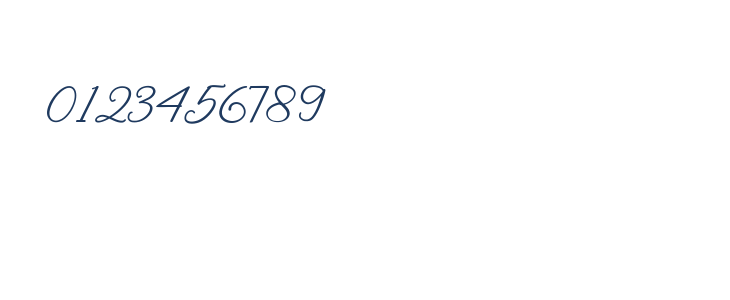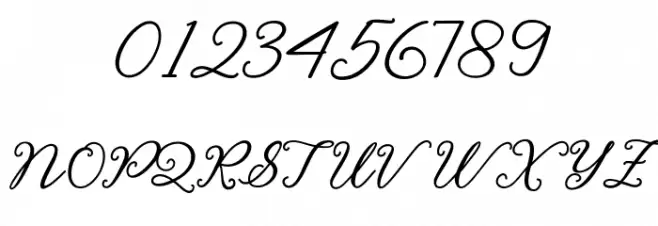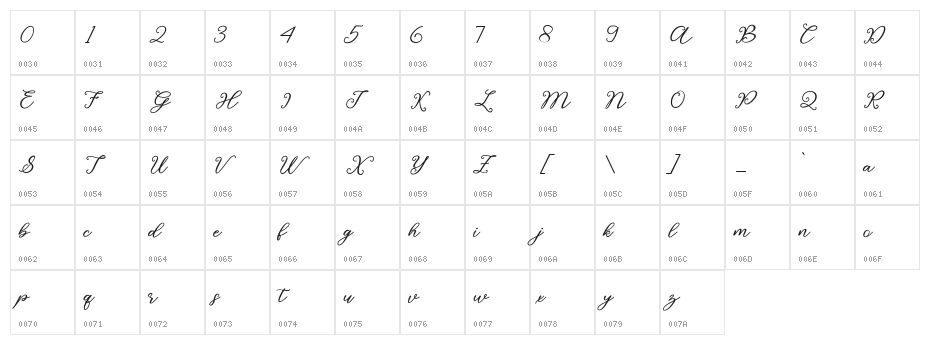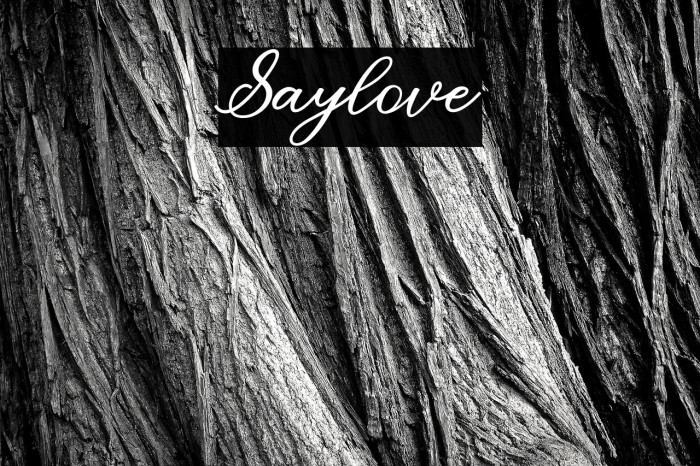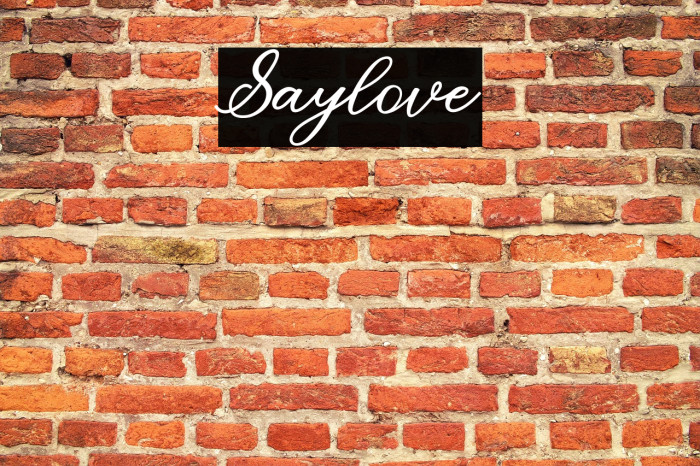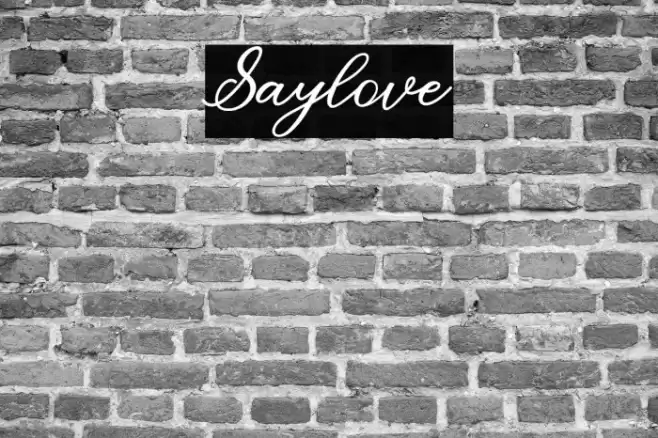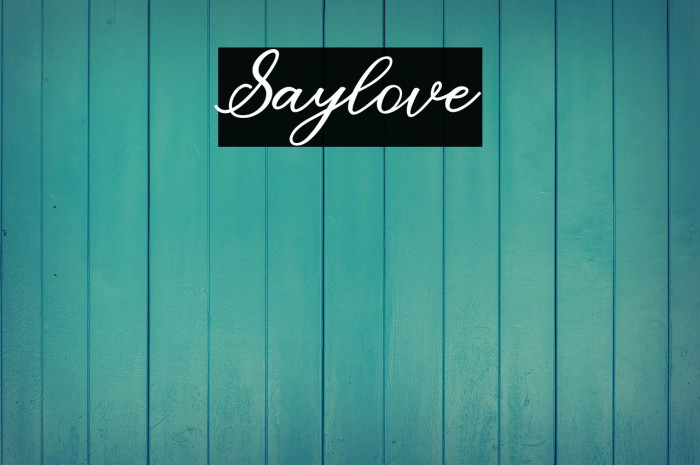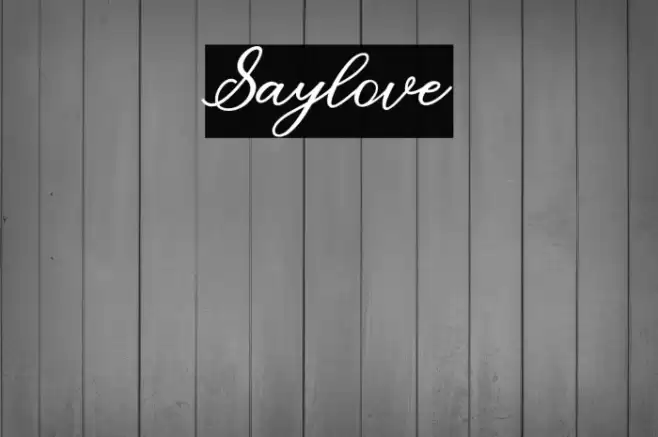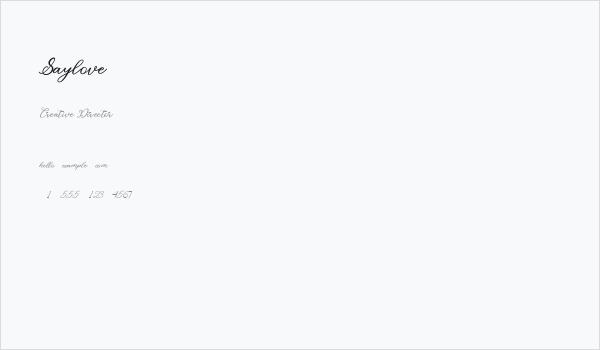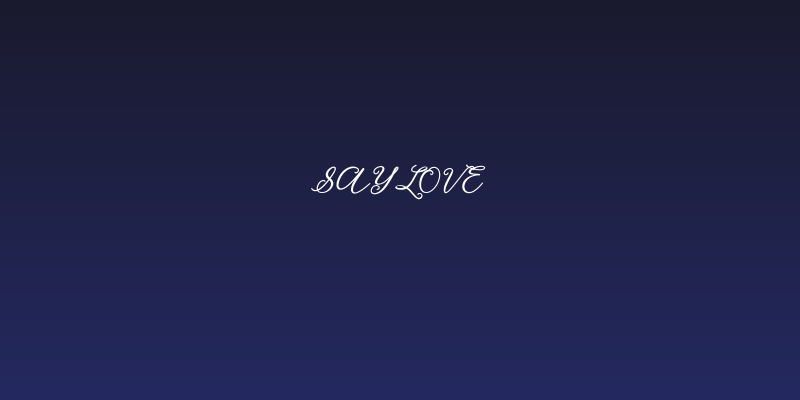
Saylove Font
Saylove Description
This elegant script font features flowing, interconnected letters with a classic and sophisticated appearance. The uppercase letters are adorned with graceful loops and curves, creating a sense of movement and fluidity. The lowercase letters maintain a consistent style, with smooth transitions and a slightly slanted orientation. The numerals are designed to complement the overall aesthetic, with a similar level of intricacy and elegance. This font exudes a timeless charm, making it suitable for a variety of formal and decorative applications. The character spacing is balanced, allowing for readability while maintaining the decorative nature of the script.
| Proposed Projects | Ideal for wedding invitations, elegant branding, greeting cards, and decorative signage. |